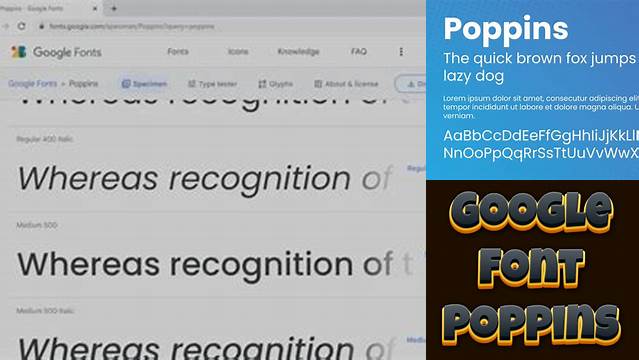
In the realm of web development and design, typography plays a crucial role in shaping the overall user experience. A well-chosen font can significantly enhance readability, convey the intended message effectively, and contribute to the aesthetic appeal of a website or application. Among the vast array of fonts available, Poppins stands out as a popular choice for its clean, modern, and versatile design. To incorporate Poppins into your web project, you'll typically use a <link>
When we talk about web typography, it's not just about making text visible; it’s about making it readable, engaging, and harmonious with the rest of the design. Think of fonts as the voice of your website – they communicate personality and tone. Poppins, with its geometric sans-serif style, brings a contemporary and friendly vibe, making it a go-to for many designers and developers aiming for a modern look. Using the correct link, like the one we're dissecting today, is step one in ensuring your website's voice is heard clearly.
Beyond the technical benefits, consider the creative freedom this link unlocks. With Poppins loaded and ready to go, you can tailor your text styles with CSS, playing with weights, sizes, and letter spacing to craft a unique visual hierarchy. It's like having a full orchestra at your fingertips, ready to play your typographic tune. But remember, with great power comes great responsibility. Overdoing it with too many font styles can clutter your design and confuse your message. The key is to use Poppins strategically, letting its inherent clarity and elegance shine through. Keep things consistent, keep them readable, and most importantly, keep them reflective of your brand’s personality. By the end of this article, you'll not only understand the mechanics of this link
Let's zoom in a bit further on that URL: https://fonts.googleapis.com/css?family=Poppins
. This isn't just a random string of characters; it's a carefully constructed request to Google's font servers. The base URL, https://fonts.googleapis.com/css
, is the address of Google's font service. The ?
indicates the start of a query string, which is used to pass parameters to the server. In this case, family=Poppins
is the parameter, instructing Google to provide the stylesheet for the Poppins font family. This is a straightforward yet powerful way to request specific fonts from Google's vast library. You could easily swap out Poppins